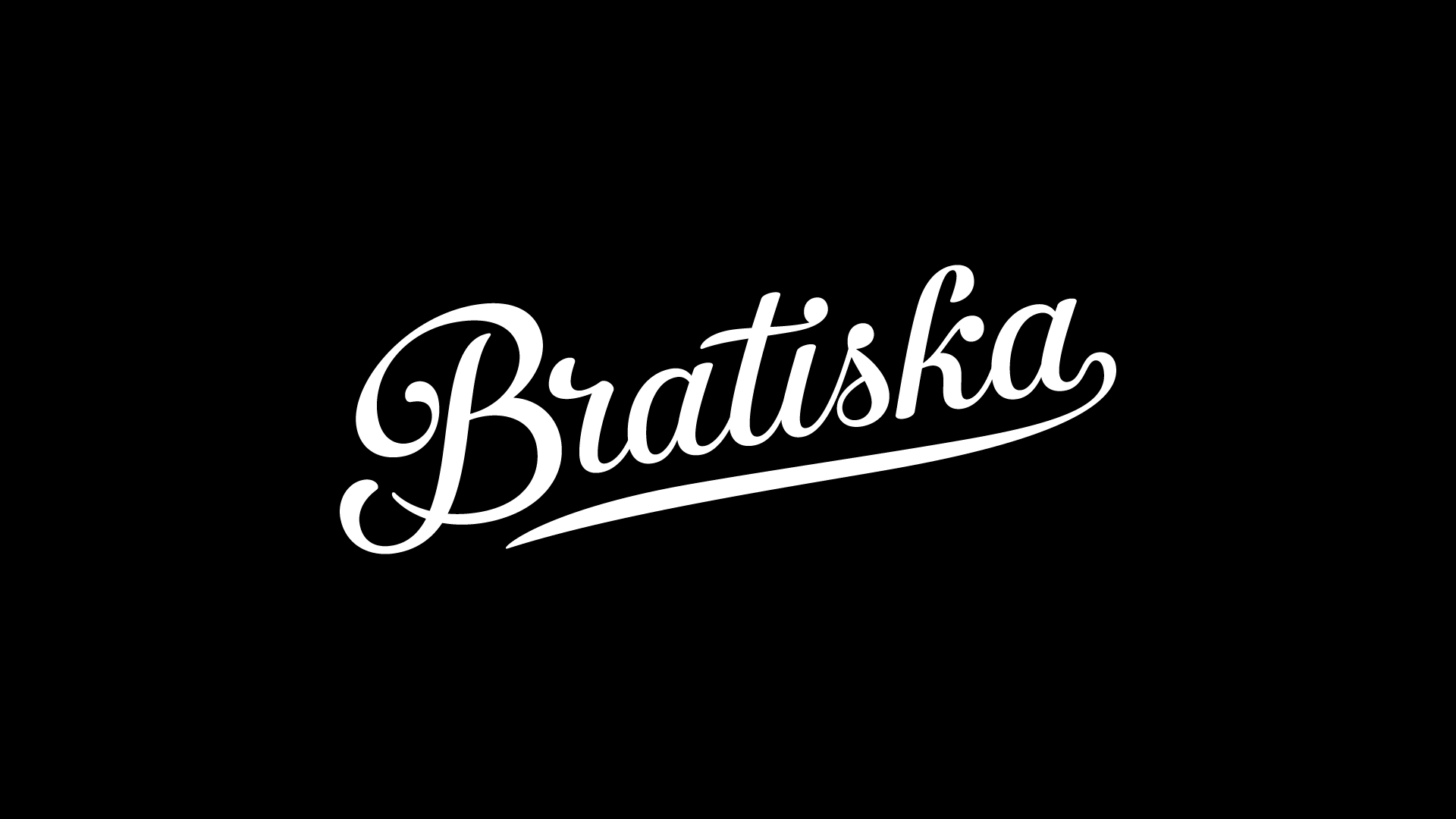
Bratiska
Complete re-drawing of a calligraphic script lettering. Fixed modulation in stroke thickness, improved rhythm and corrected construction logic.